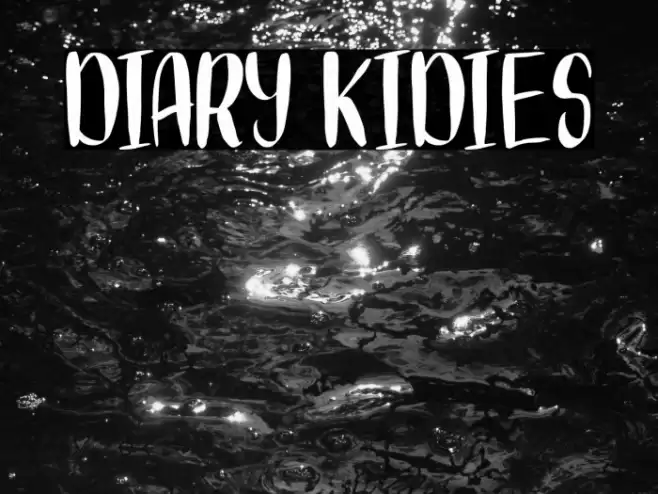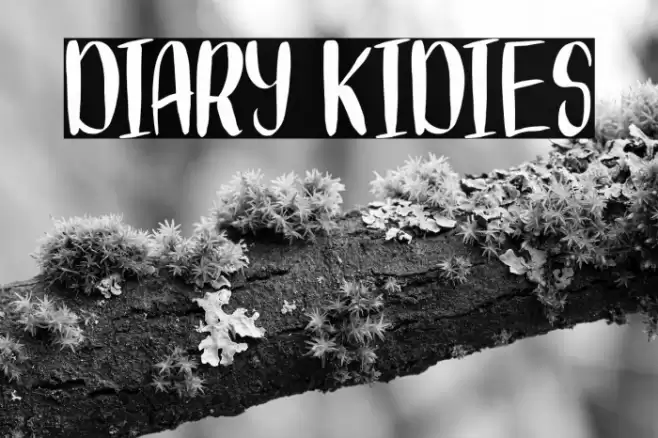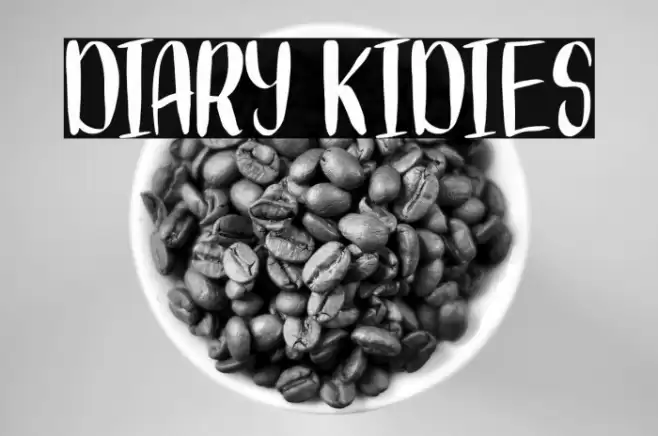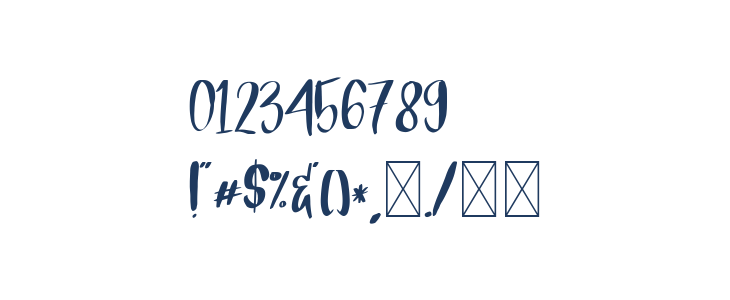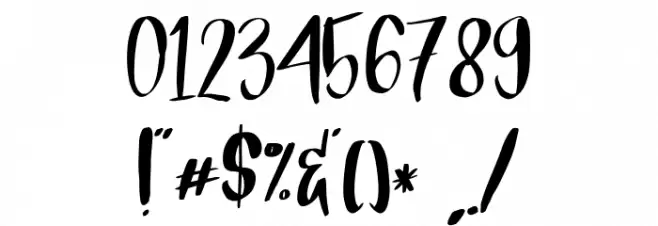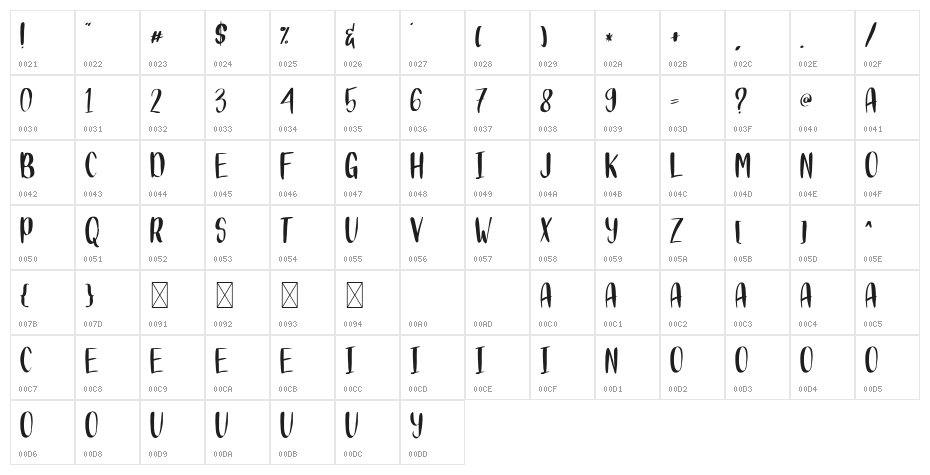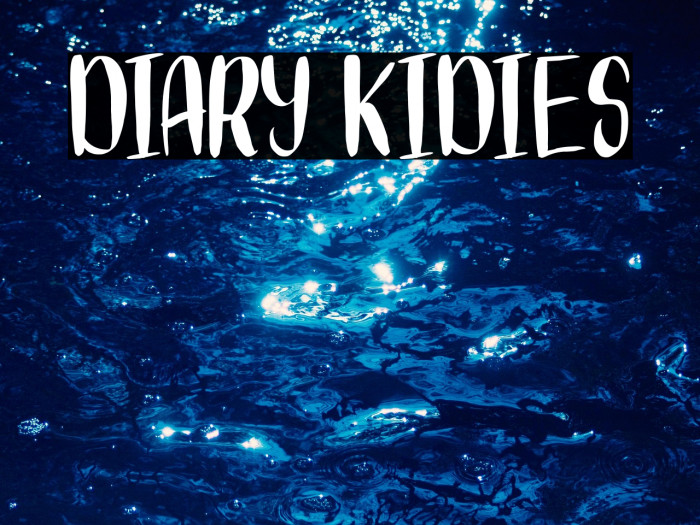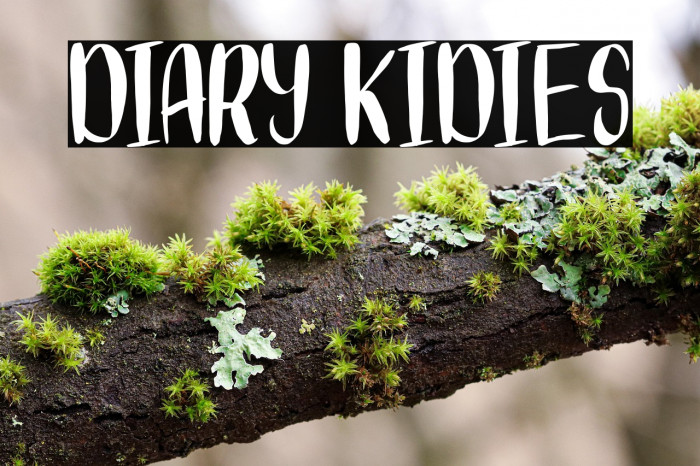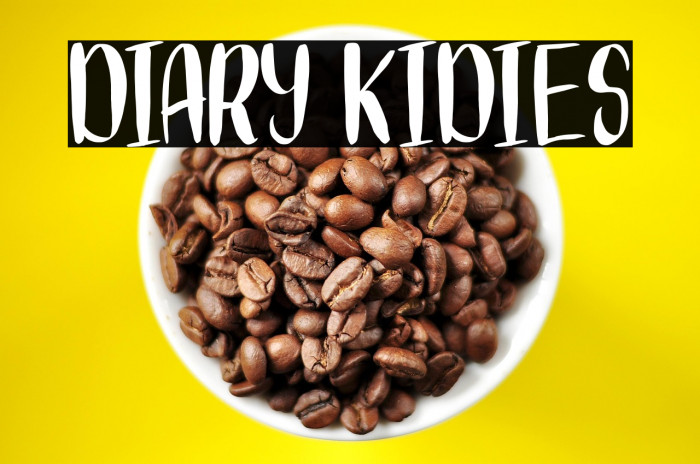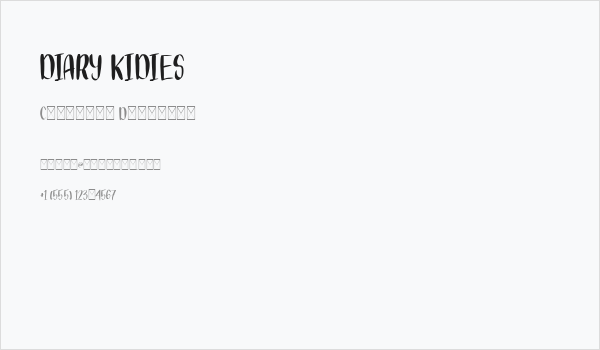
DIARY KIDIES Font
DIARY KIDIES Description
This font features a playful and energetic handwritten style, characterized by its bold and slightly irregular strokes. The letters have a casual, informal appearance, with a dynamic flow that suggests movement and spontaneity. The uppercase and lowercase letters maintain a consistent style, with a slight slant that adds to the lively feel. The numbers and special characters are designed to match the overall aesthetic, making them suitable for a variety of creative projects. The font's unique personality makes it ideal for designs that require a touch of whimsy and fun.
A playful, bold handwritten font with dynamic strokes and a casual style from Regular fonts.
- Proposed Projects: Ideal for children's book covers, playful branding, greeting cards, and creative posters.
- Overall Style: Playful, Energetic, Casual